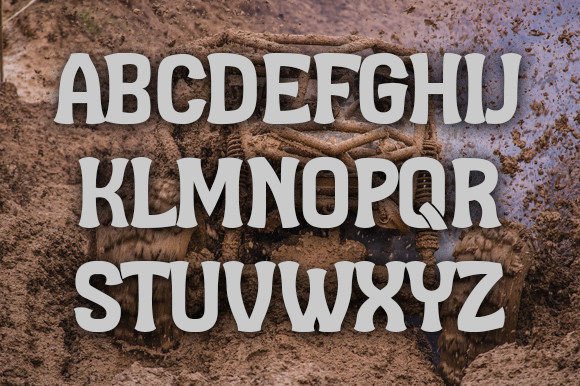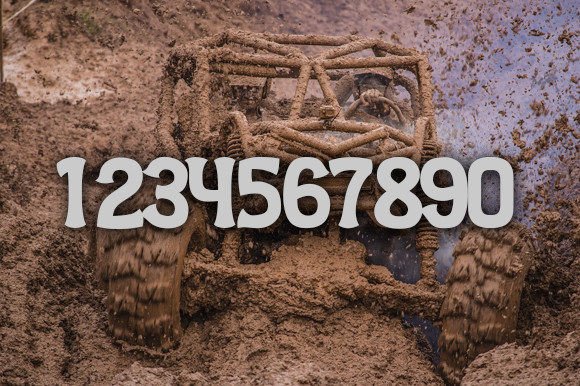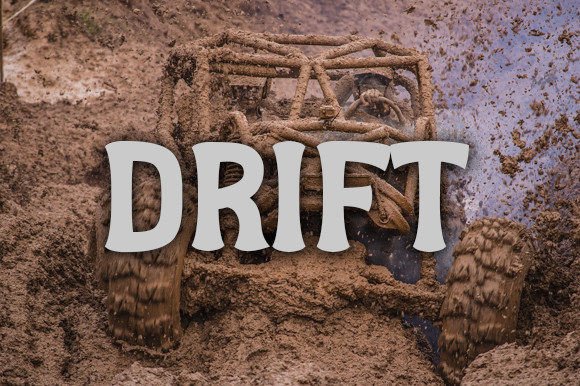
Introducing Army Jeep Font: The Quirky Display Font You Need
Are you tired of using the same old fonts in your designs? Do you want to add a touch of playfulness and joy to your creative projects? Look no further than the Army Jeep Font! This cute and quirky display font is sure to make your designs stand out from the crowd.
What is Army Jeep Font?
Army Jeep Font is a unique and eye-catching display font that is perfect for designers and crafters looking to add some personality to their work. With its bold and adventurous feel, this font is sure to capture the attention of your audience and leave a lasting impression.
Characteristics of Army Jeep Font
So, what makes Army Jeep Font so special? Here are just a few of its key characteristics:
- Cute and Quirky: Army Jeep Font has a playful and charming vibe that’s perfect for designs that need a bit of personality.
- Display Font: This font is designed to make a statement, making it perfect for headings, titles, and other display text.
- Bold and Adventurous: Army Jeep Font has a bold and adventurous feel that’s sure to capture the attention of your audience.
How to Use Army Jeep Font
Army Jeep Font is incredibly versatile and can be used in a variety of design projects, including:
- Signs and Posters: Use Army Jeep Font to create eye-catching signs and posters that grab attention.
- Logos and Branding: Add a touch of playfulness to your logos and branding with this unique font.
- Social Media Graphics: Use Army Jeep Font to create engaging social media graphics that stand out from the crowd.
- Crafting and Scrapbooking: Add a personal touch to your crafting and scrapbooking projects with this charming font.
Benefits of Using Army Jeep Font
So, why should you choose Army Jeep Font for your design projects? Here are just a few benefits:
- Unique and Eye-Catching: Army Jeep Font is a one-of-a-kind font that’s sure to grab attention.
- Easy to Read: Despite its playful feel, Army Jeep Font is easy to read and understand.
- Versatile: This font can be used in a variety of design projects, from signs and posters to logos and social media graphics.
- Fun and Playful: Army Jeep Font adds a touch of joy and playfulness to your designs, making them more engaging and memorable.
Tips for Using Army Jeep Font Effectively
Here are a few tips for using Army Jeep Font effectively in your design projects:
- Use it Sparingly: Army Jeep Font is a bold and eye-catching font, so use it sparingly to avoid overwhelming your design.
- Pair it with Other Fonts: Pair Army Jeep Font with other fonts to create a unique and interesting contrast.
- Experiment with Colors: Try out different colors and color combinations to find the perfect match for your design.
Army Jeep Font is a unique and eye-catching display font that’s perfect for designers and crafters looking to add some personality to their work. With its bold and adventurous feel, this font is sure to capture the attention of your audience and leave a lasting impression. So why wait? Add Army Jeep Font to your design toolkit today and start creating engaging and memorable designs!